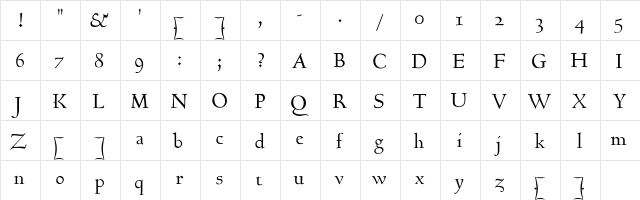
GoundyHundred-I Regular Font Preview
GoundyHundred-I Regular
GoundyHundred-I Regular Font Details
Design Context for GoundyHundred-I Typeface
GoundyHundred-I offers clean, dependable letterforms without strong stylistic allegiance, making it a practical choice for designers who need flexibility.